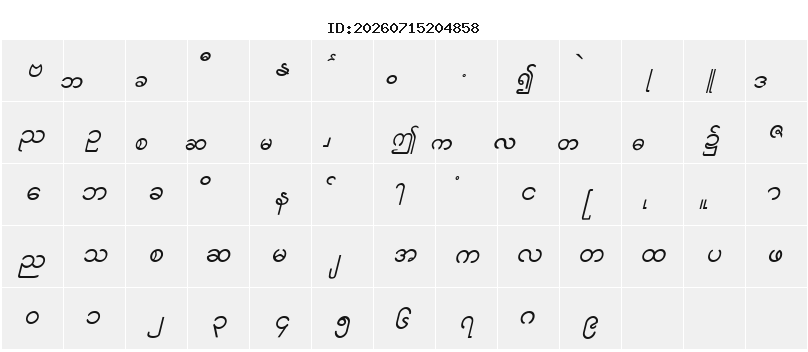
• Font Name: Aung San
About Aung San.ttf
Aung San.ttf is a modern, elegant sans-serif font designed for ultimate readability and visual harmony. Perfect for branding, headlines, web design, and print materials.